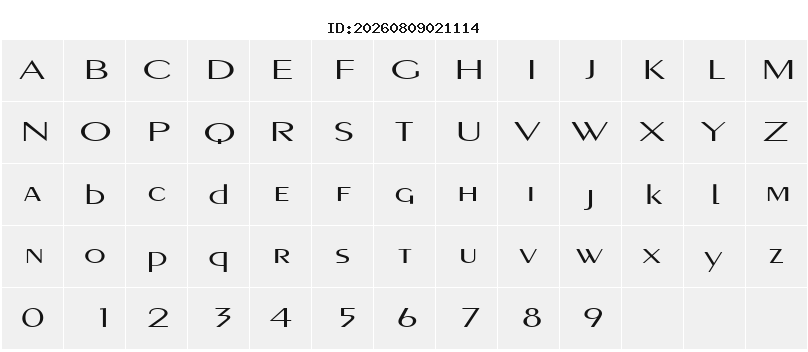
PigNoseTyp Preview
• Font Name: PigNoseTyp
• Font ID: FontMonger:PigNoseTyp Medium
• Full Font Name: PigNoseTyp Medium
About PigNoseTyp.ttf
PigNoseTyp.ttf is a modern, elegant sans-serif font designed for ultimate readability and visual harmony. Perfect for branding, headlines, web design, and print materials.